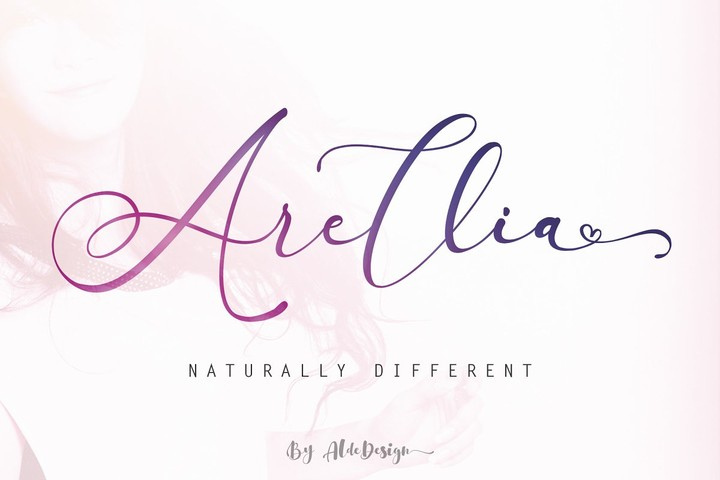
Arellia Script Font
This elegant calligraphic typeface is perfect for luxury wedding invitations, high-end fashion branding, premium beauty product packaging, sophisticated stationery design, upscale restaurant menus, boutique hotel signage, fine jewelry advertising, and refined lifestyle brand communications.
What makes this font exciting is its exquisite hand-lettered quality that captures the artistry of master calligraphers with flowing strokes and graceful flourishes that create instant sophistication. The delicate balance between ornate elegance and contemporary readability makes it perfect for brands seeking to communicate luxury, craftsmanship, and timeless beauty while maintaining accessibility across various applications.
The Arellia Script Font family includes regular and bold weights, along with decorative swashes, elegant ligatures, and ornamental flourishes that enhance the script's luxurious appeal for comprehensive high-end design applications.
Arellia Script Font Free Download provides designers with a stunning solution for creating premium brand identities that exude sophistication and artistic refinement. This masterfully crafted typeface brings the elegance of traditional calligraphy to modern luxury markets, making it ideal for high-end cosmetics brands, exclusive fashion houses, luxury wedding planners, and premium hospitality businesses seeking to establish distinguished, aristocratic brand presence.
The captivating personality of Arellia Script Font emerges through its fluid connections and graceful letterforms that evoke the refined artistry of European calligraphic traditions. Each character displays meticulous attention to stroke variation and elegant proportions that create visual poetry and emotional resonance. This exceptional craftsmanship makes it particularly suitable for luxury perfume labels, fine art galleries, exclusive member clubs, and prestigious award ceremonies requiring typography that communicates heritage, exclusivity, and uncompromising quality.
Creative professionals will find this font invaluable for establishing emotional connections with affluent, sophisticated audiences. From champagne brand campaigns to luxury spa materials, from high-end real estate brochures to exclusive event invitations, Arellia Script Font maintains its aristocratic character while adapting to diverse luxury applications. The font's extensive stylistic alternates, contextual ligatures, and decorative elements provide exceptional creative flexibility, ensuring designers can achieve the perfect balance of opulence and elegance for premium brand communications that celebrate artistic excellence and refined taste across all luxury market segments.